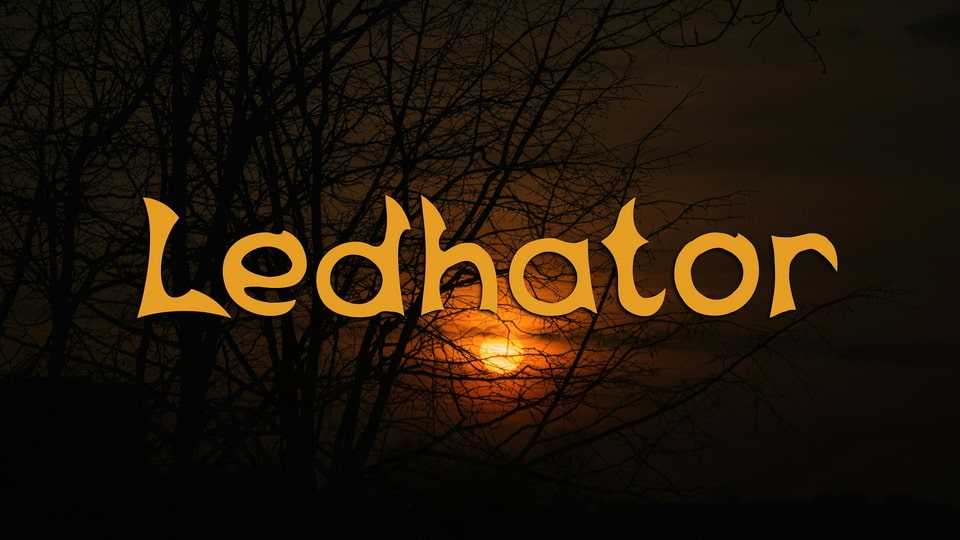
Download Ledhator Display font, a decorative typeface that inspired by Indonesia traditional weapon, Kerambit. Conveys a message of bold, brave, and brings a sense of hunting. Ledhator is suitable for headline and body text in masculine and bold design.